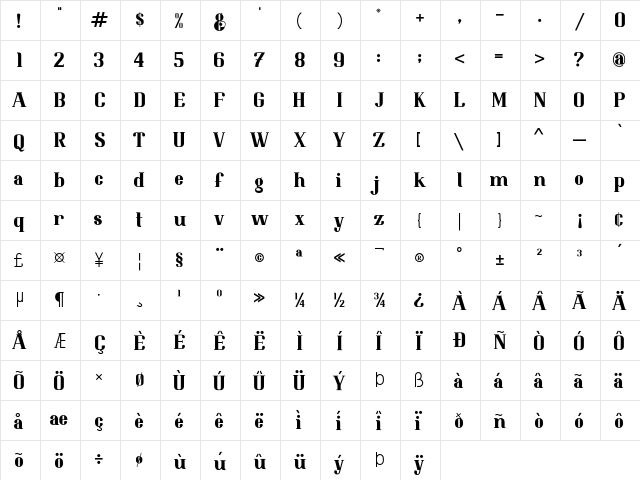
Resolve Regular
| Foundry | Afredo.fk |
| Designer | Zulfikar Ali |
Design Context for Resolve Typeface
Resolve is a composed and adaptable typeface that performs quietly and consistently across a wide range of design contexts.